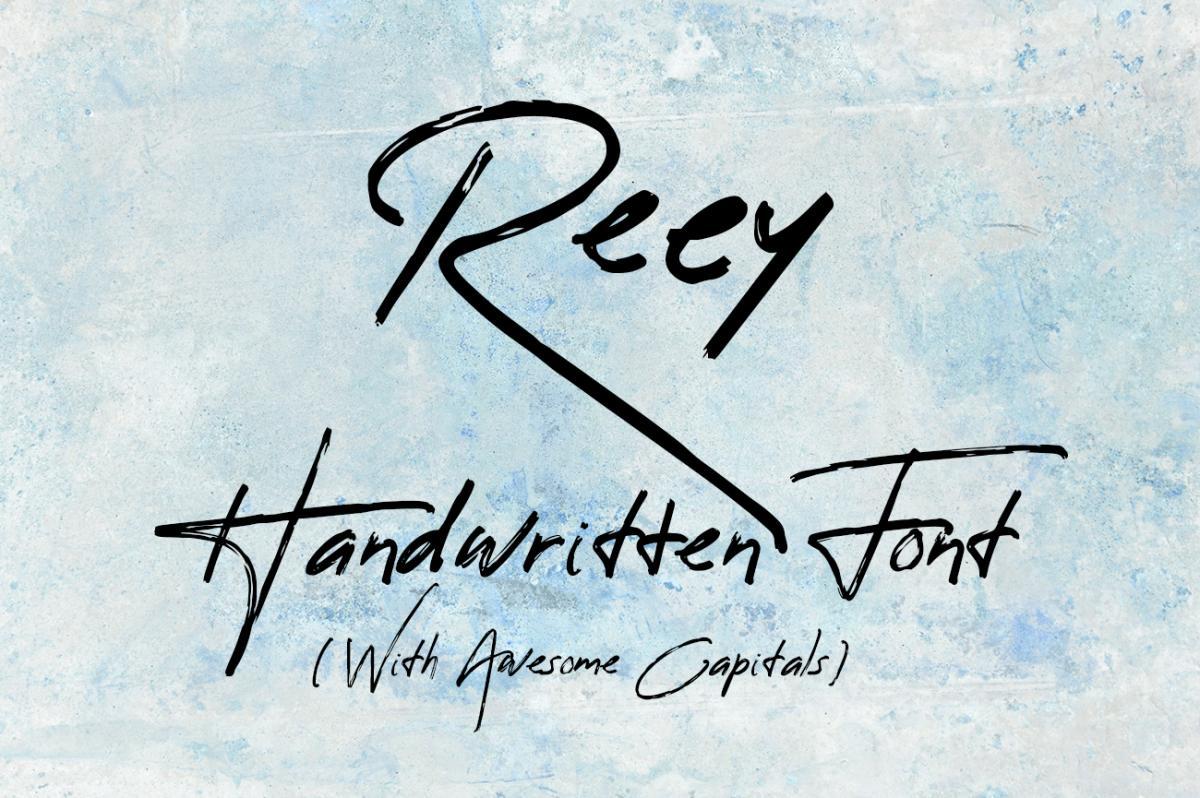
Reey Script Font is a type with a whole lot of a flavour. When it comes to realism, Reey is your saviour. With lots of alt’s for a funky behaviour. Type like a scribble on a small piece of paper!
Reey is perfect for fashion, e-commerce brands, trendy blogs, or any business that wants to have a handwritten touch!